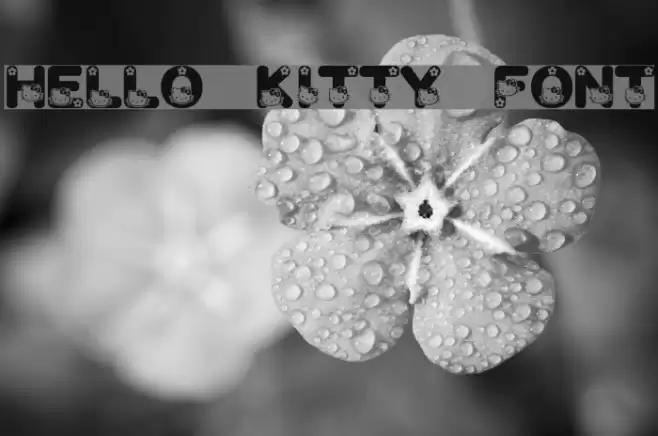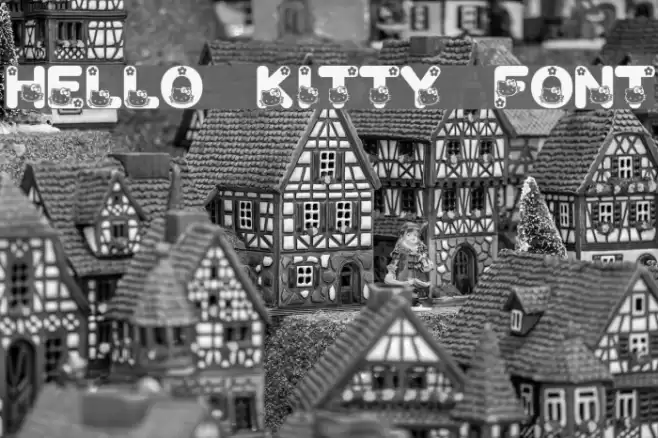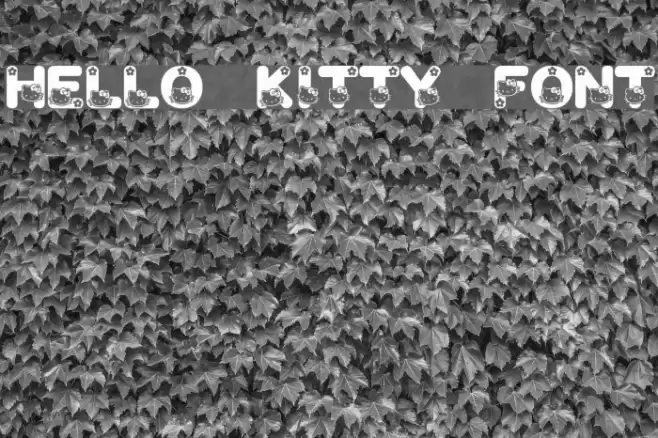
HELLO KITTY FONT Font
HELLO KITTY FONT Description
This playful and decorative font features bold, rounded characters with an adorable Hello Kitty motif integrated into each letter and number. The design is whimsical and charming, appealing to a younger audience or those with a fondness for cute aesthetics. Each character is adorned with Hello Kitty's iconic face, adding a unique and instantly recognizable element. The font maintains a consistent weight and width, ensuring readability while emphasizing its decorative nature. Perfect for projects that require a fun and lighthearted touch.
A playful, decorative font featuring Hello Kitty motifs in each character from Decorative fonts.
- Proposed Projects: Ideal for children's books, party invitations, themed merchandise, and playful branding projects.
- Use Case: Headlines, Logos, Themed Designs